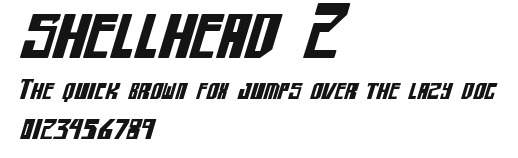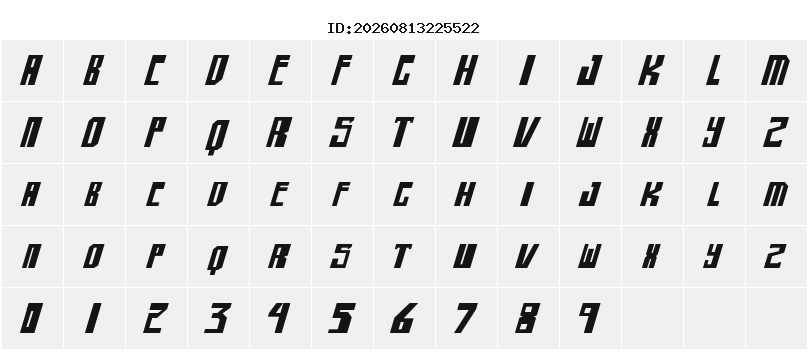
shellhead 2 Preview
• Font Name: shellhead 2
• Font Style: Gras Italique
• Full Font Name: shellhead 2 Bold Italic
• Designer: Andeh Pinkard
About shellhead 2.ttf
shellhead 2.ttf is a modern, elegant sans-serif font designed for ultimate readability and visual harmony. Perfect for branding, headlines, web design, and print materials.